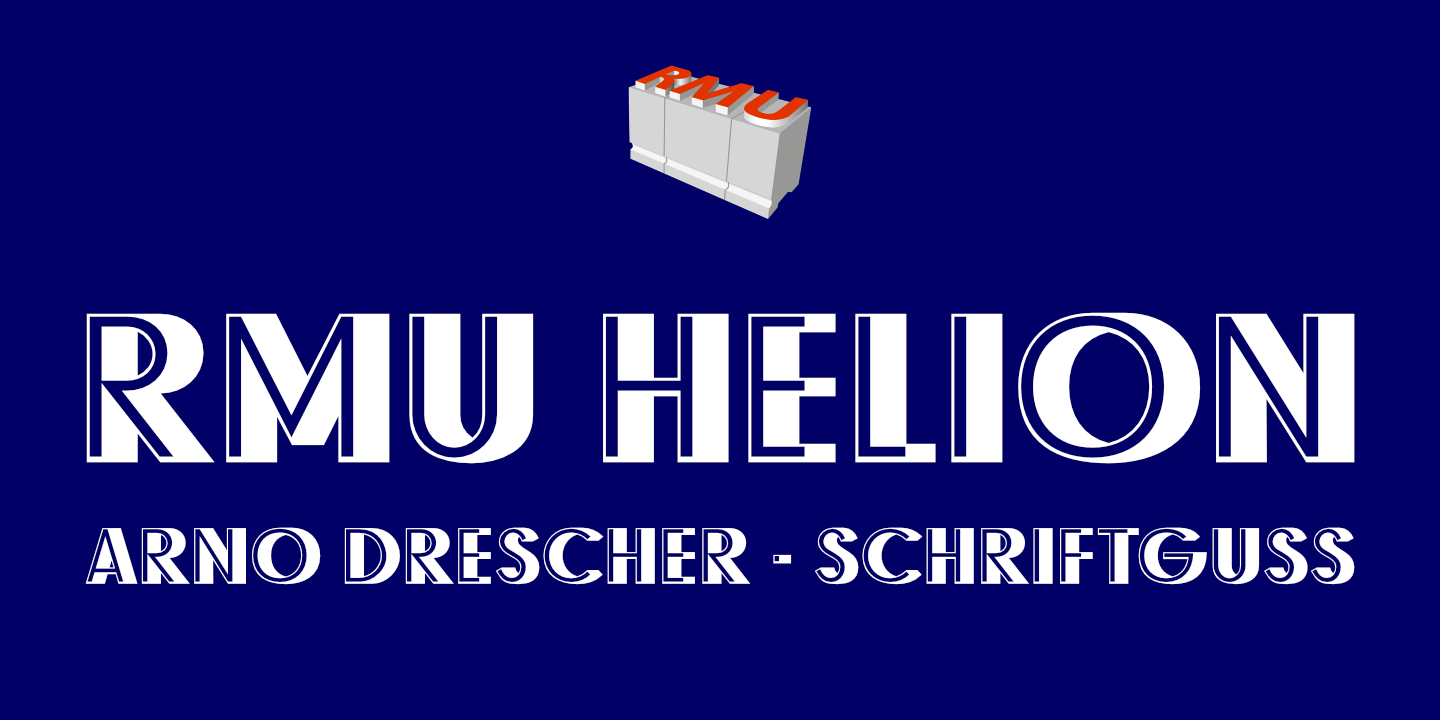
RMU Helion Font is perfect for solar energy company branding, astronomical observatory materials, space exploration graphics, renewable energy presentations, scientific research publications, environmental sustainability campaigns, modern tech startups, innovative product launches, futuristic architectural projects, and clean energy marketing materials. This luminous typeface excels in applications where solar brilliance and scientific innovation need to be communicated with radiant energy and forward-thinking vision that illuminates the path to a sustainable future.
What makes RMU Helion Font exciting is its remarkable ability to capture the essence of solar power and celestial energy through its brilliantly crafted letterforms that seem to radiate with the luminous force of our nearest star. The font embodies the spirit of solar innovation and astronomical wonder with its clean geometric construction and radiant proportions that suggest the precision of solar panels and the infinite energy of stellar bodies. Its carefully engineered character details and luminous personality create an atmosphere of sustainable optimism that resonates with scientists, environmentalists, and visionaries working toward a brighter future.
The RMU Helion Font family typically includes Light, Regular, Medium, and Bold weights, each maintaining the signature solar characteristics and scientific precision. Some versions offer extended character sets with scientific notation, mathematical symbols, and specialized technical characters. The family may also include condensed variants for efficient data presentation and display cuts optimized for maximum visual impact in scientific and environmental communications requiring clear information delivery.
Whether you're developing solar technology brands, scientific publications, or environmental awareness campaigns, RMU Helion Font Free Download delivers the perfect solar brilliance your illuminating projects deserve. Its radiant character and scientific styling make it an essential tool for renewable energy companies, research institutions, and environmental organizations working in sustainability, clean technology, and scientific innovation sectors where authentic solar energy and bright future vision are fundamental to inspiring positive change and technological advancement.